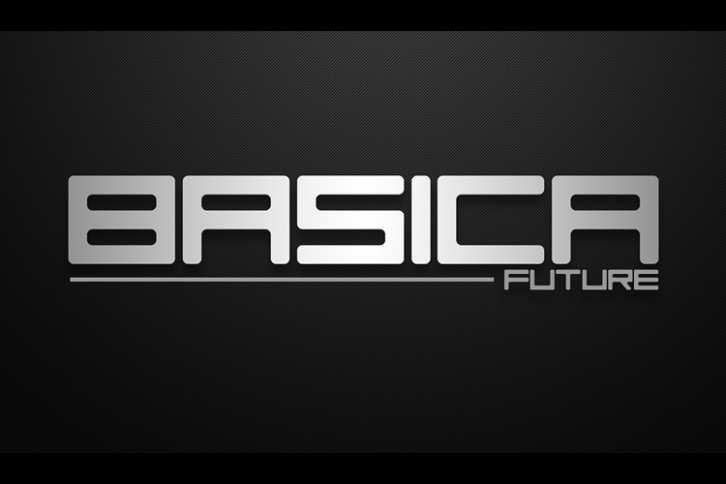
Basica is a great font that was designed by Qbotype Fonts. Imagine the amount of combinations you can create using this font! The archive is 1.37 MB and it was released on November 25, 2019. Basica looks beautiful on wedding invitations, greeting cards, logos, posters, labels, t-shirt designs, logos, business cards and is perfect for use in ink or watercolor works, fashion, magazines, packaging and food menus, children's books and more!